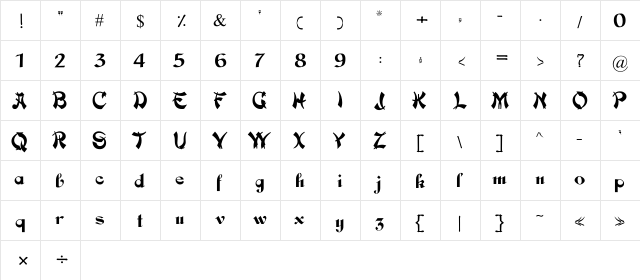
Mangrio-Aziz_I-Chini Regular
| Designer | Abdul-Aziz Mangrio |
Design Context for Mangrio-Aziz_I-Chini Typeface
Mangrio-Aziz_I-Chini is a composed and adaptable typeface that performs quietly and consistently across a wide range of design contexts.
Pro Tip: Use Mangrio-Aziz_I-Chini in both headline and body roles to test its range before committing to a single application.